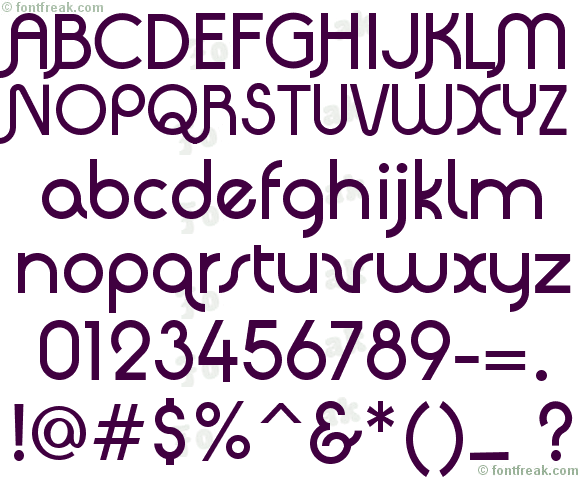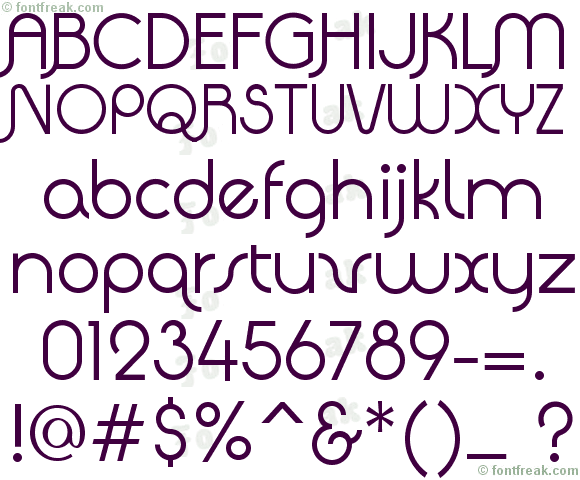
Quadranta
About Quadranta
Quadranta, designed by Darim Kim, is a bold display font that effortlessly captures attention with its unique character. This freeware typeface features a contemporary sans-serif style, providing a clean and modern aesthetic suitable for various design projects. The visual characteristics of Quadranta include a strong stroke weight and minimal contrast, which give it a robust presence while maintaining clarity. The generous spacing between letters enhances readability, making it an ideal choice for both digital and print applications.
Quadranta's versatility makes it an excellent option for specific use cases, such as vibrant movie posters, eye-catching restaurant menus, and engaging social media graphics. Its boldness lends itself well to branding materials, making it a favorite among small business owners looking to create a memorable logo or promotional content. Additionally, graphic designers will appreciate its suitability for creating striking event flyers and invitations, particularly for modern and trendy occasions.
Targeting a diverse audience, Quadranta appeals to graphic designers, content creators, and small business owners alike. Its modern design allows users to convey a sense of innovation and professionalism, whether for personal or commercial projects.
What truly sets the Quadranta font apart is its ability to blend simplicity with impact. The bold strokes capture attention without overwhelming the viewer, making it a fantastic choice for any design that requires a statement. With its free download option, designers can easily incorporate this distinctive typeface into their projects, allowing for creativity without budget constraints. Quadranta is not just a font; it's a design asset that elevates visual communication.